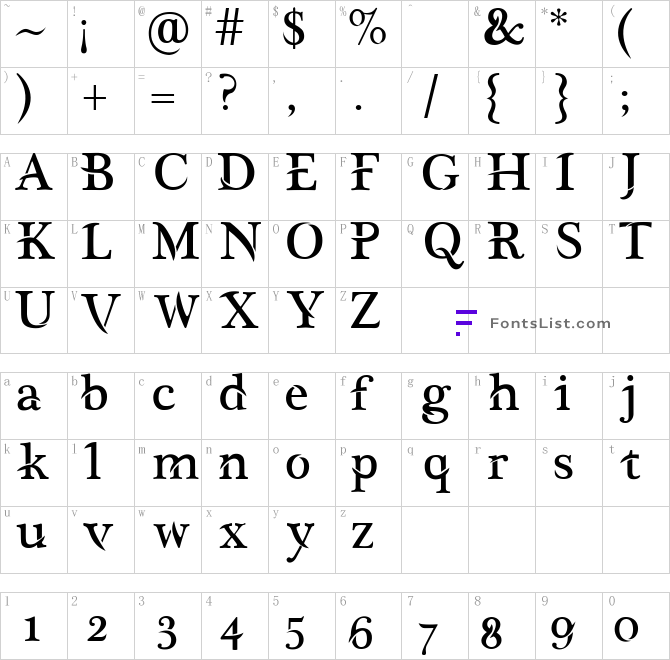
Akbaal.ttf is a very beautiful artistic font, Akbaal.ttf is widely used in the design and printing of various books and pictures,Akbaal.ttf has a strong visual impact,Akbaal.ttf is a commonly used font in newspapers, magazines and books, and is used in posters, e-commerce Poster design, store design, logo design, font design and other fields.Akbaal.